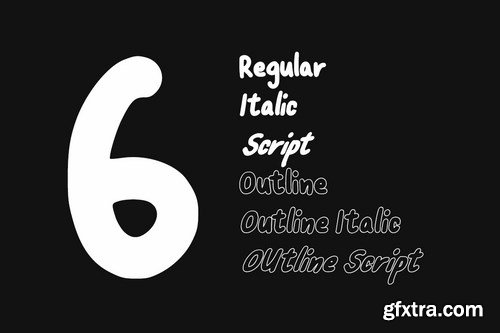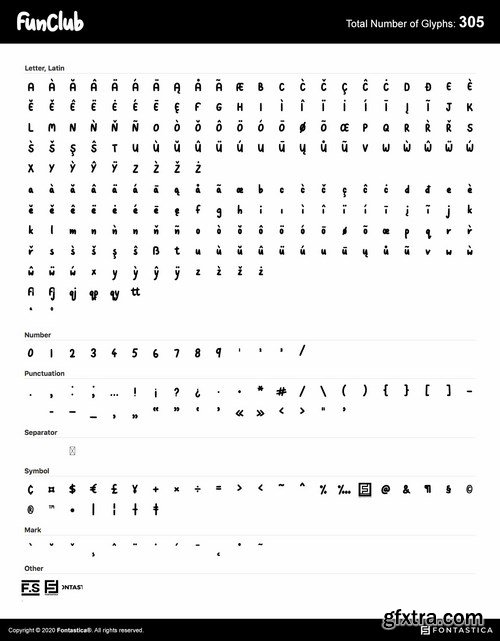
FunClub - the lovey & playful handwritten fonts inspired from kids doodles & sketchbooks, completely handmade and developed with perfection
The typeface is actually simple in design but with a touch of uniqueness, it can be perfectly useful for designing posters, flyers, cartoons, comics, graphics, logotype, web and display usage. Please see the examples shown above to get an idea about the capability of this typeface. FunClub comes with Extended Latin character sets including Western European, Central European and South Eastern European character sets having support for 19 languages: Afrikaans, Albanian, Catalan, Croatian, Danish,Dutch, English, Estonian, Finnish, French, German, Italian, Lithuanian, Norwegian, Portugese, Slovenian, Spanisch, Swedish, Zulu. Please see the character map preview included. The typeface features single weight but 6 variants (Regular, Italic, Outline, Outline Italic, Script and Script Outline. The pack contains OTF, TTF as Desktop fonts and optional Web Fonts (all EOT, SVG, TTF, WOFF, WOFF2 formats included) as licensing choice. The typeface includes advanced kerning, some unique ligatures and OTF features. Designed by Lis at Fontastica, Exclusively distributed by Designova. The graphics used for demo are from Vecteezy website (not included in the download pack).